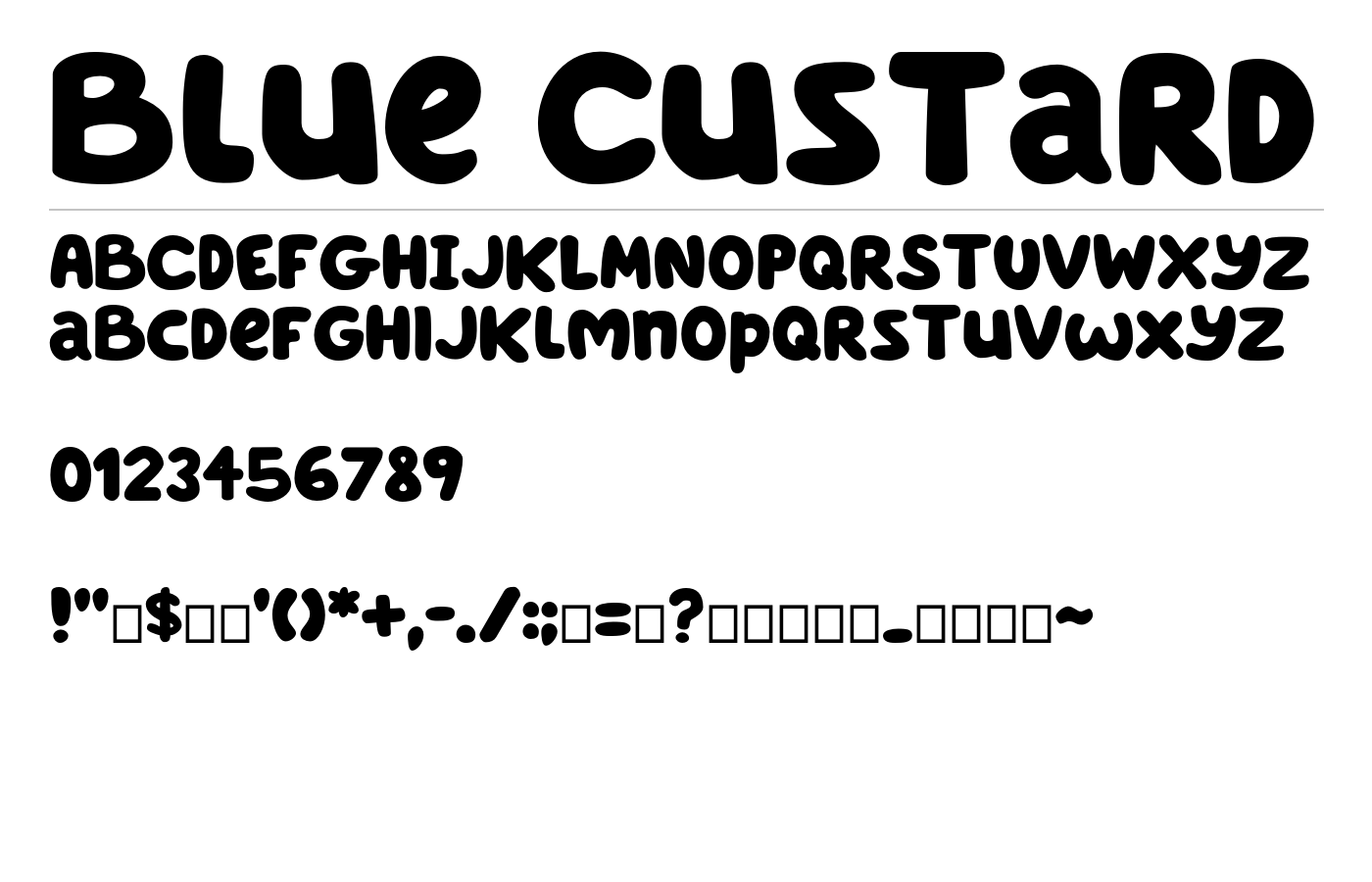
Blue Custard is a bold, playful sans serif font with rounded, soft edges and a chunky, friendly appearance. Its uniform stroke weight and whimsical letterforms give it a casual, approachable feel, making it ideal for children’s books, fun branding, and informal headlines. This font works well where a warm, inviting vibe is desired without sacrificing readability.
Blue Custard Font
About Blue Custard Font